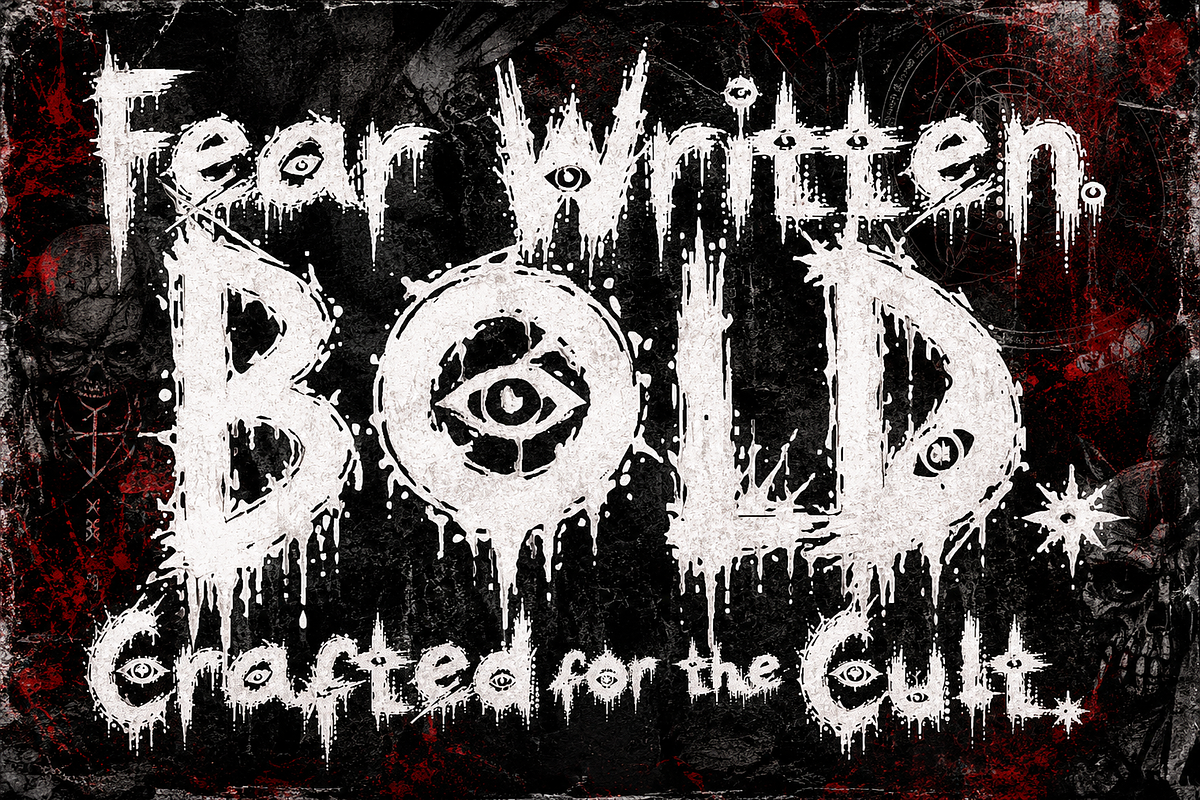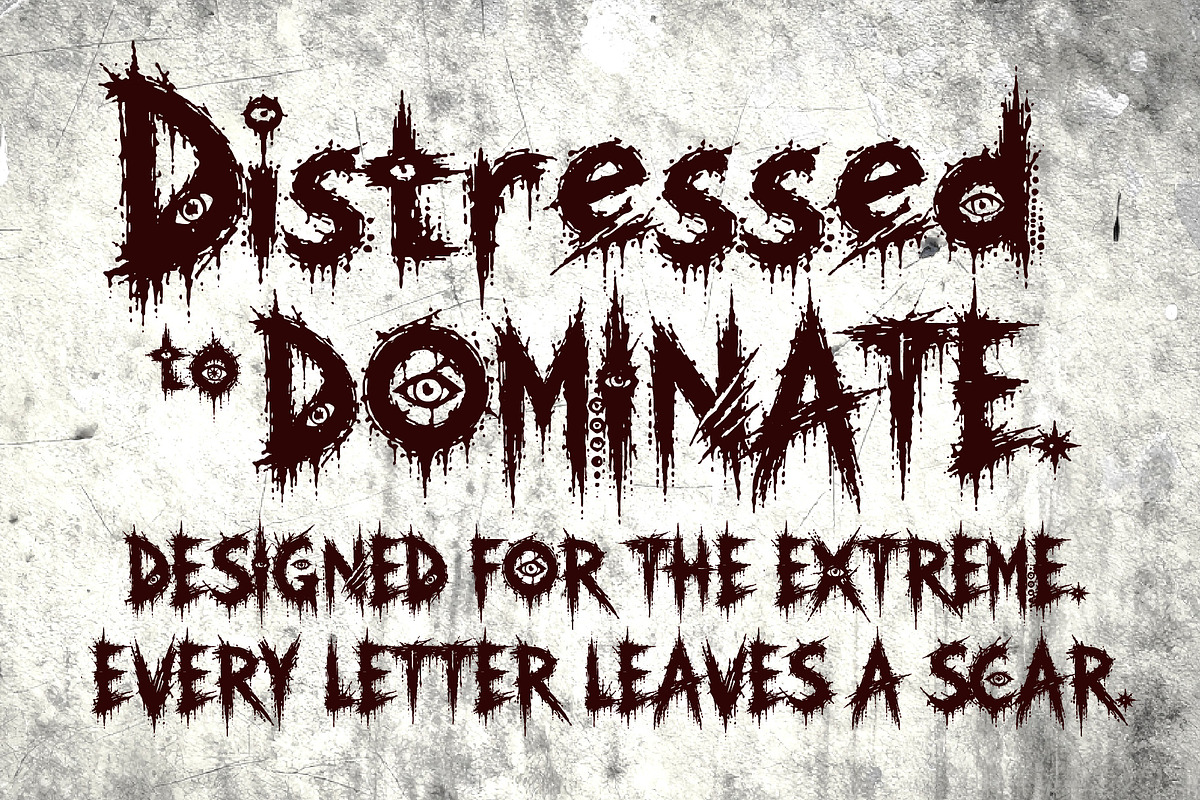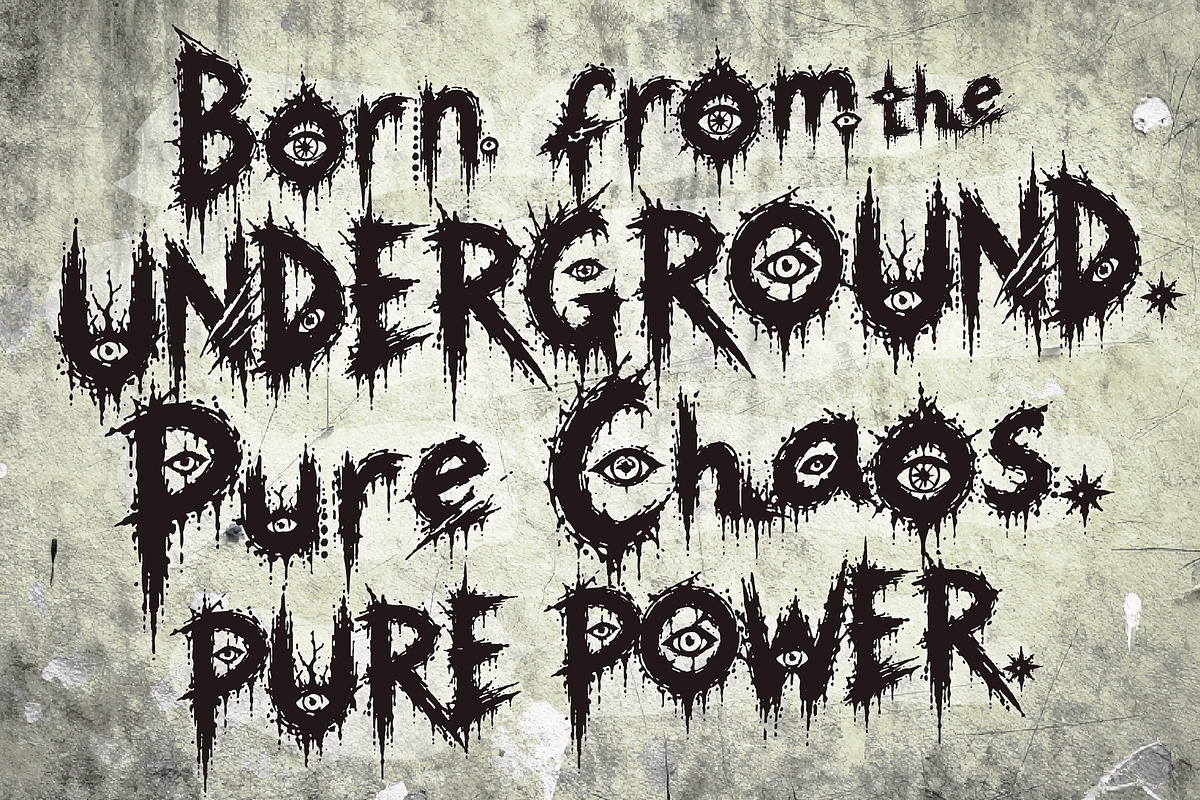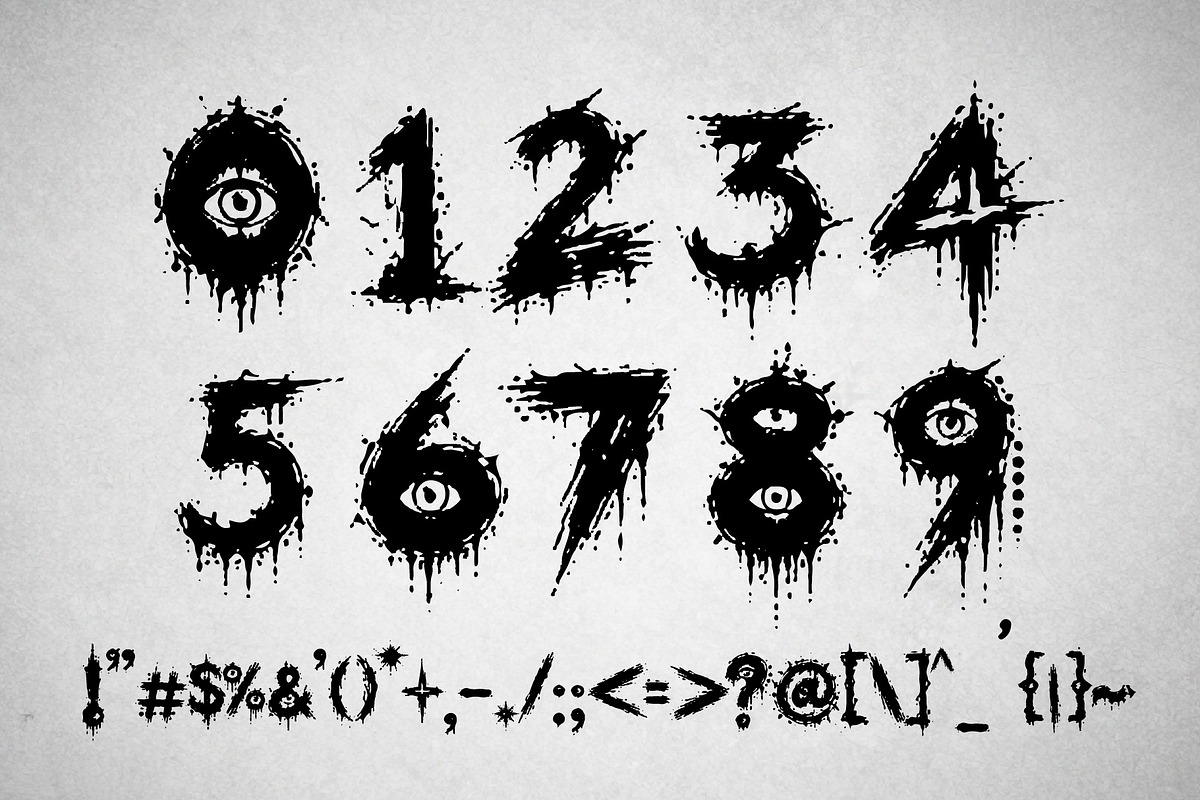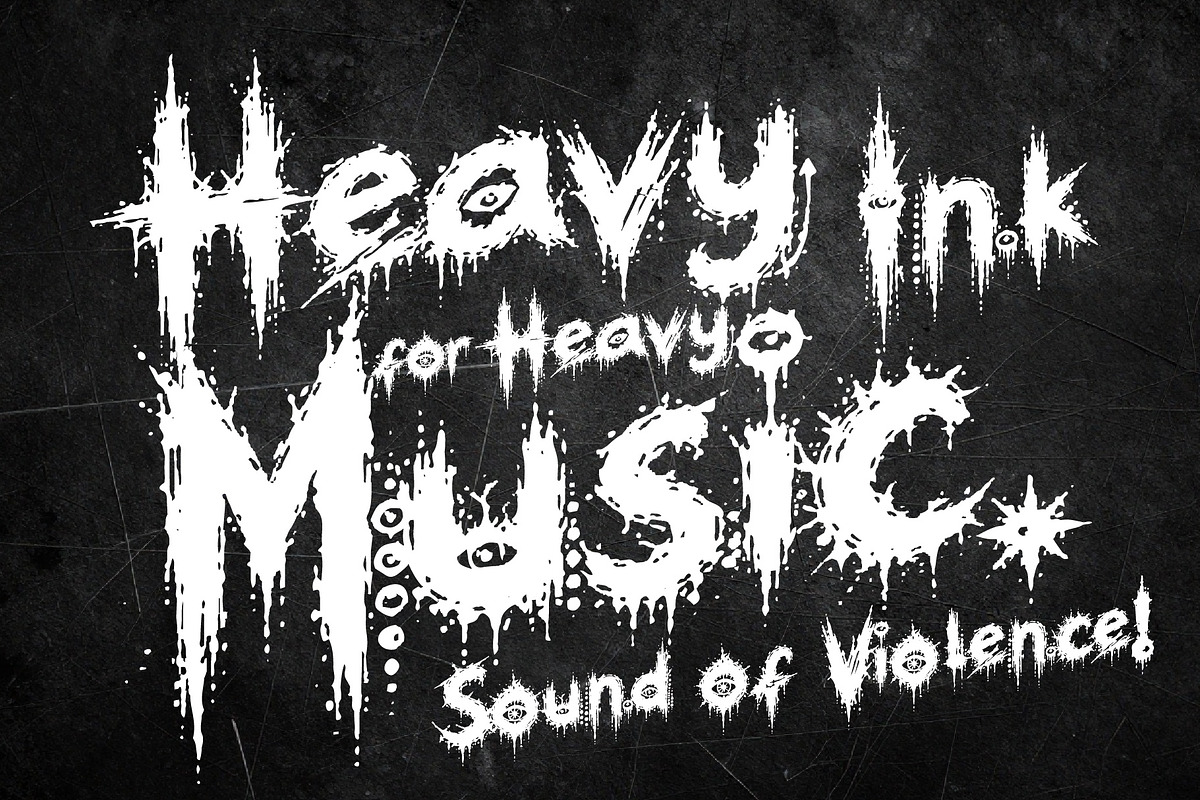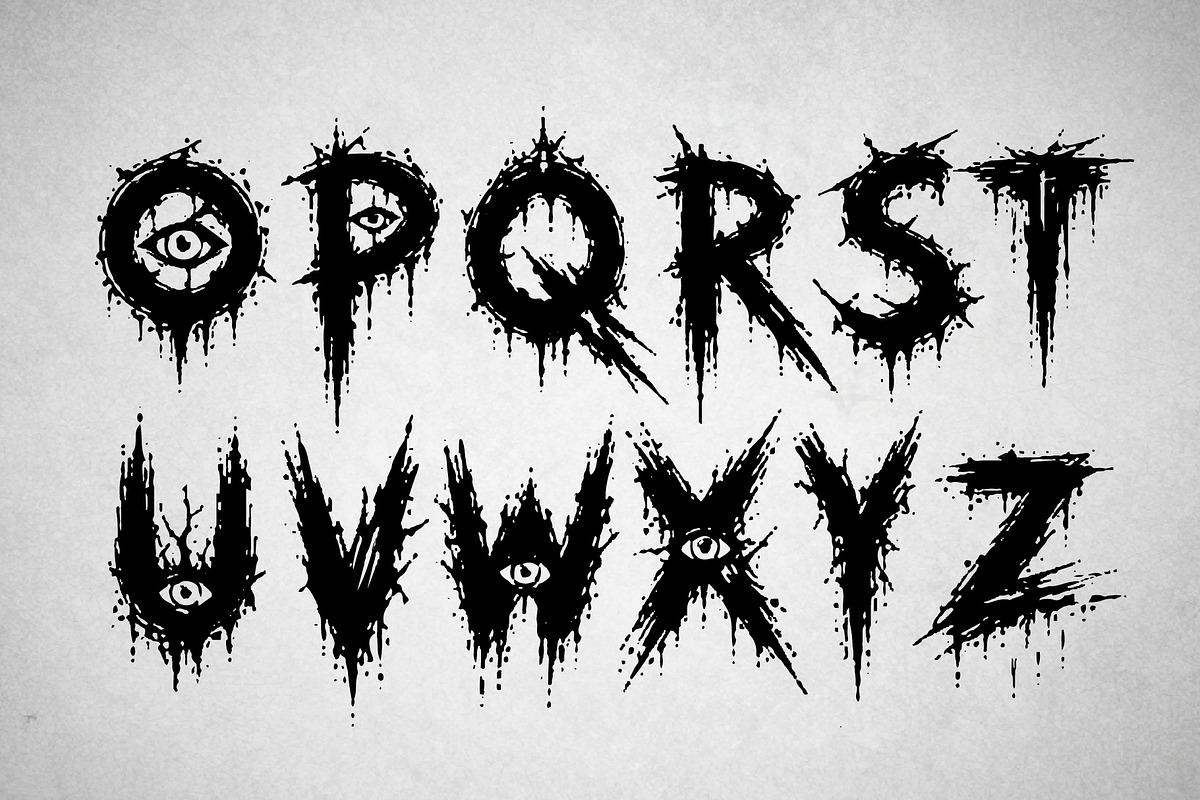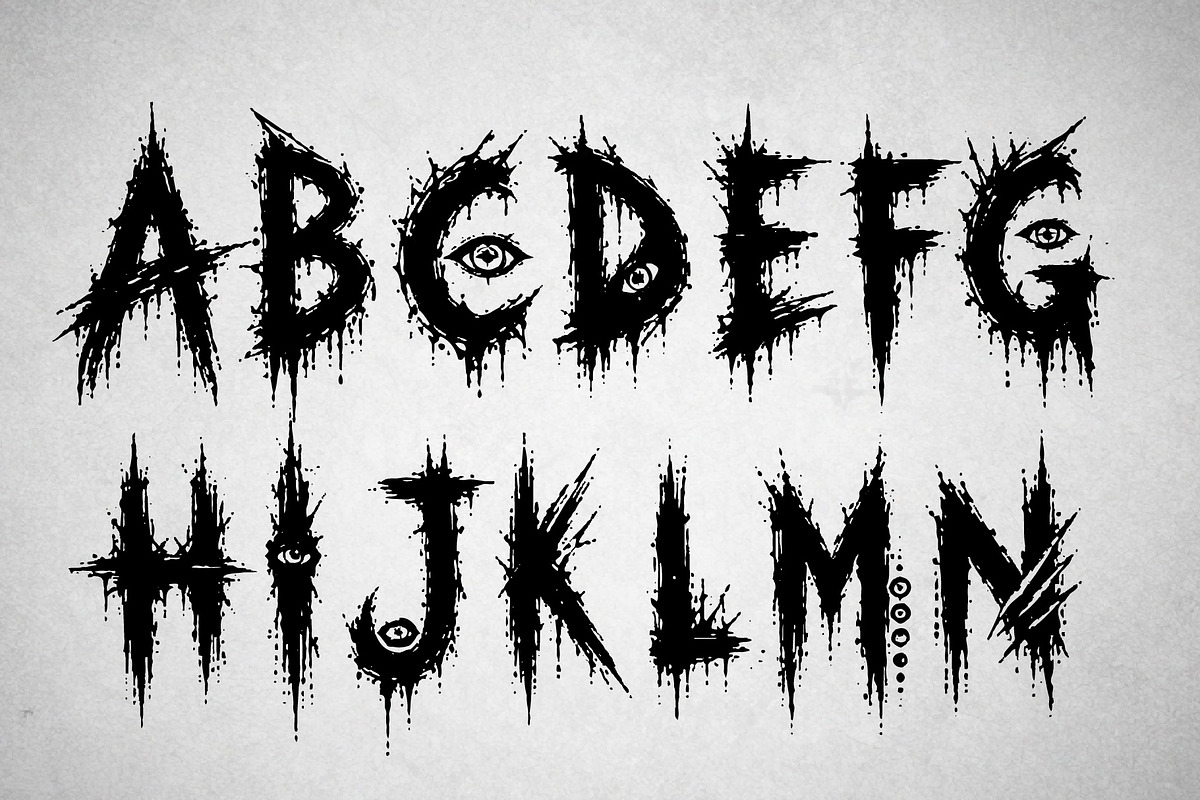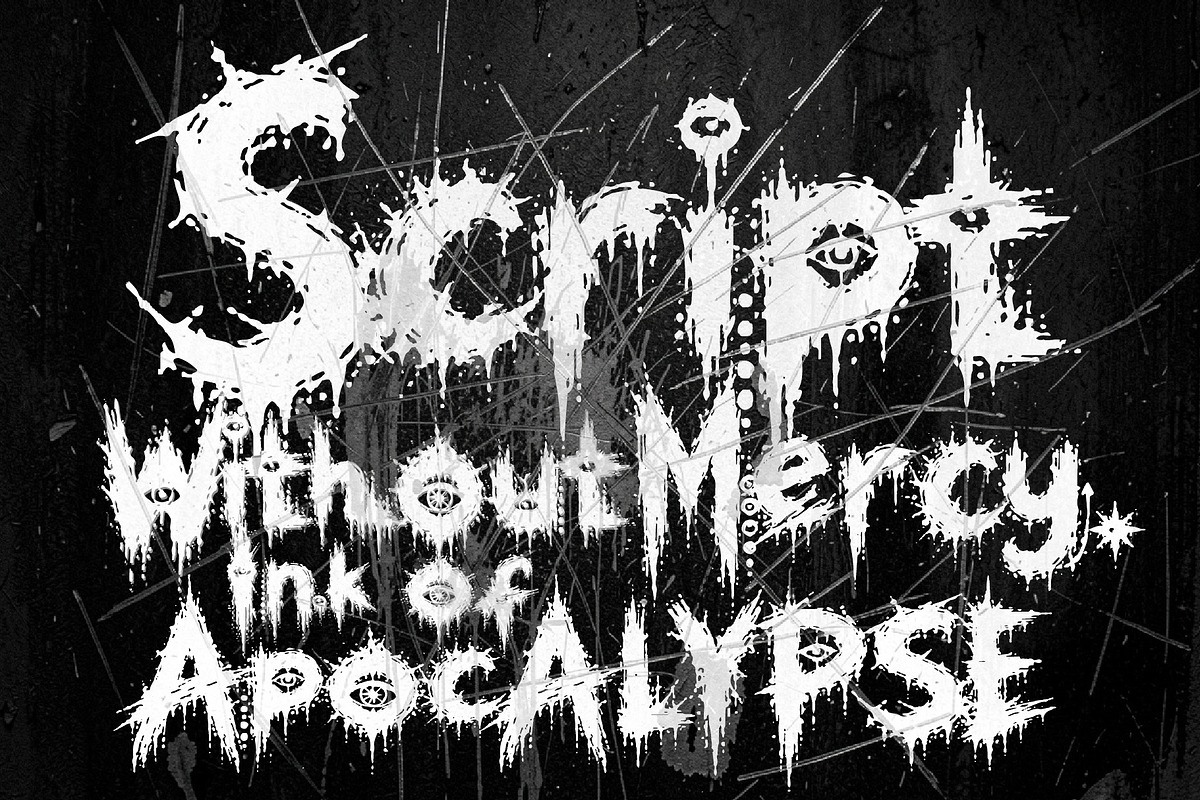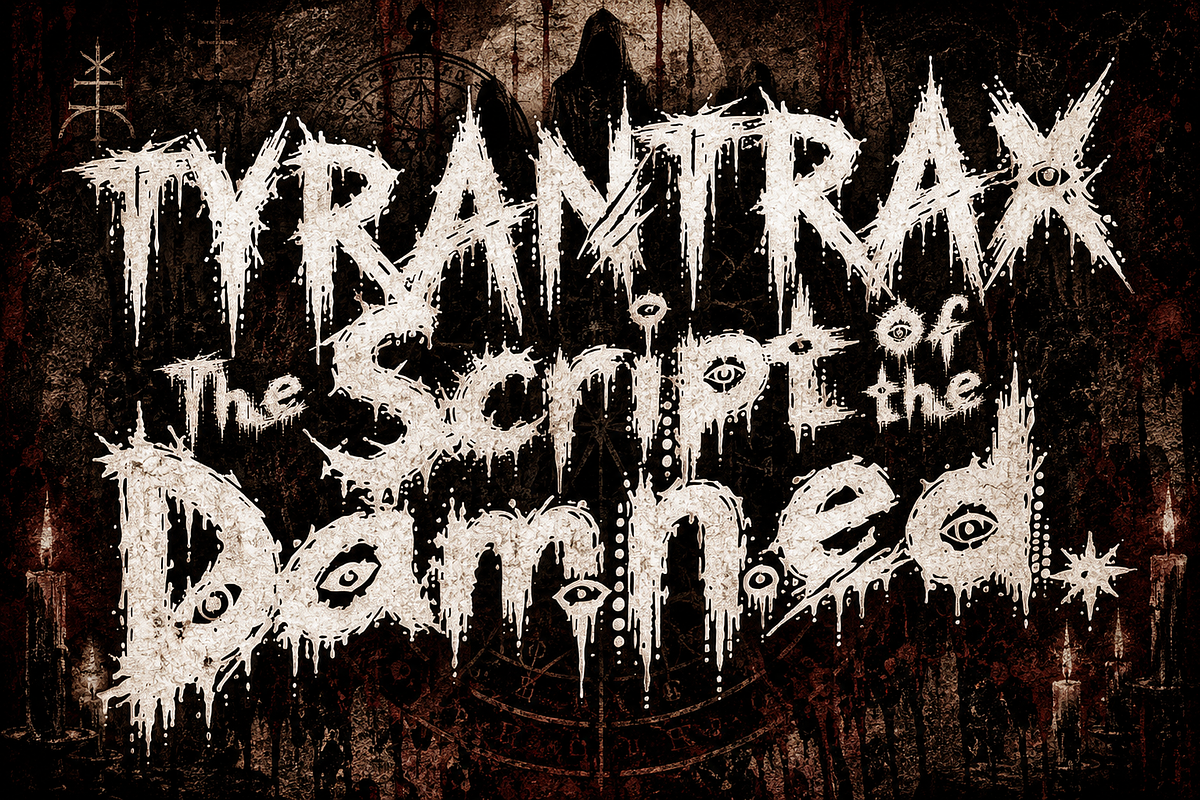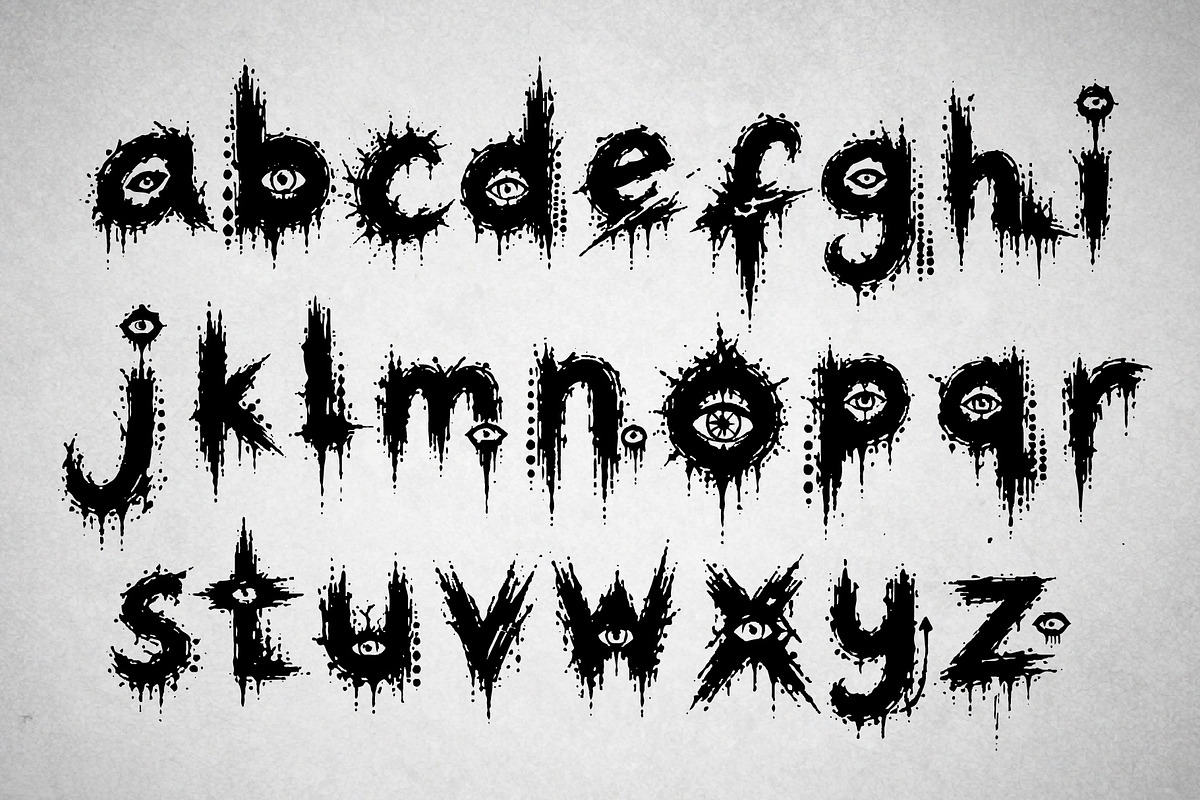
TyranTrax - Metal & Hardcore
Tyrantrax is a brutal grunge script typeface forged from chaos, aggression, and underground metal culture. Every letter is packed with rough brush strokes, jagged cuts, distressed textures, and handcrafted imperfections that make it feel like it was carved into rusted steel or painted with blood-soaked ink. The bold connected script delivers raw movement while maintaining strong readability, making it perfect for designs that demand an unapologetically dark attitude.
Inspired by black metal aesthetics, horror imagery, cult symbolism, punk flyers, and DIY underground art, Tyrantrax brings an intense handcrafted energy that feels rebellious and unfiltered. Whether you're designing album covers, festival posters, apparel, branding, tattoos, horror games, or extreme merchandise, this typeface creates an immediate visual impact.
Its expressive character makes every headline feel loud, violent, and unforgettable—ideal for creatives who want typography that refuses to stay clean.